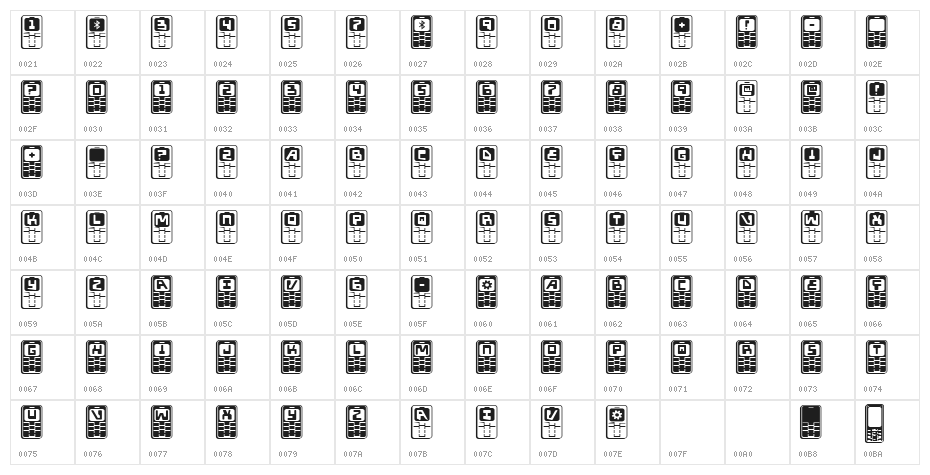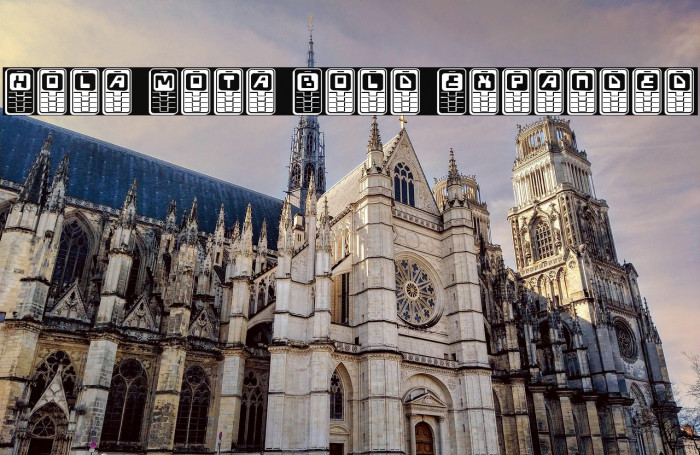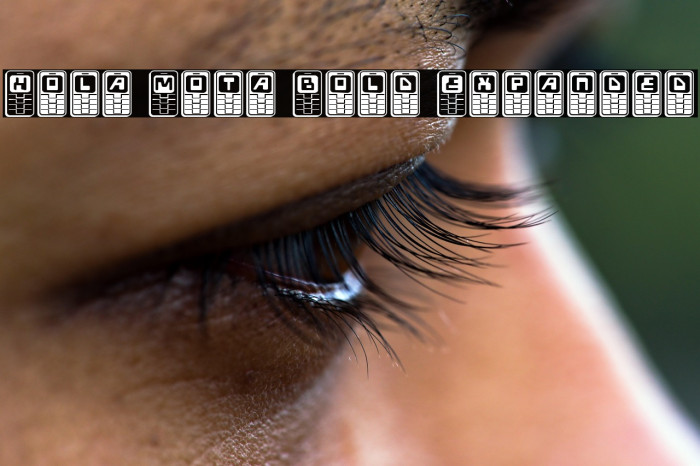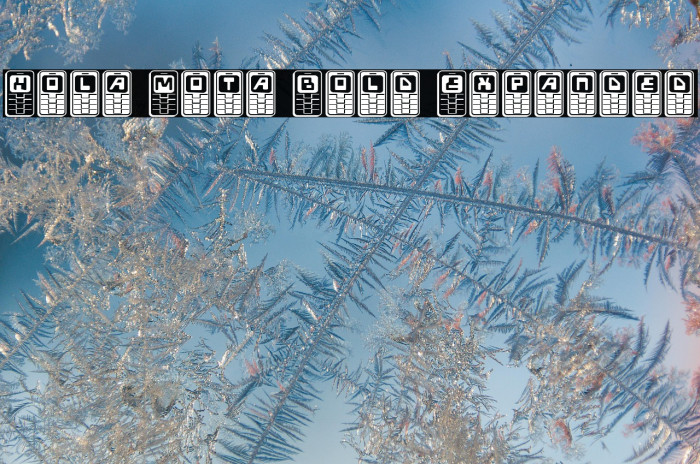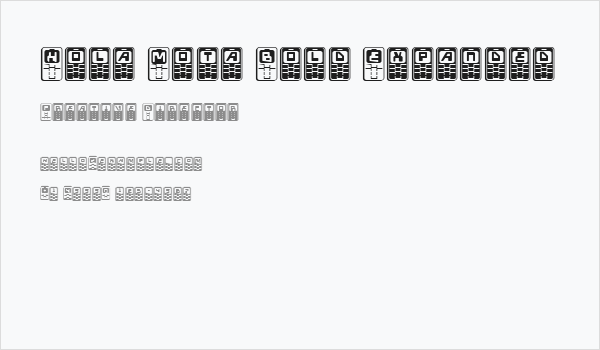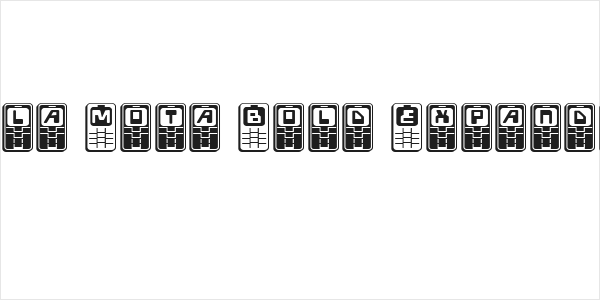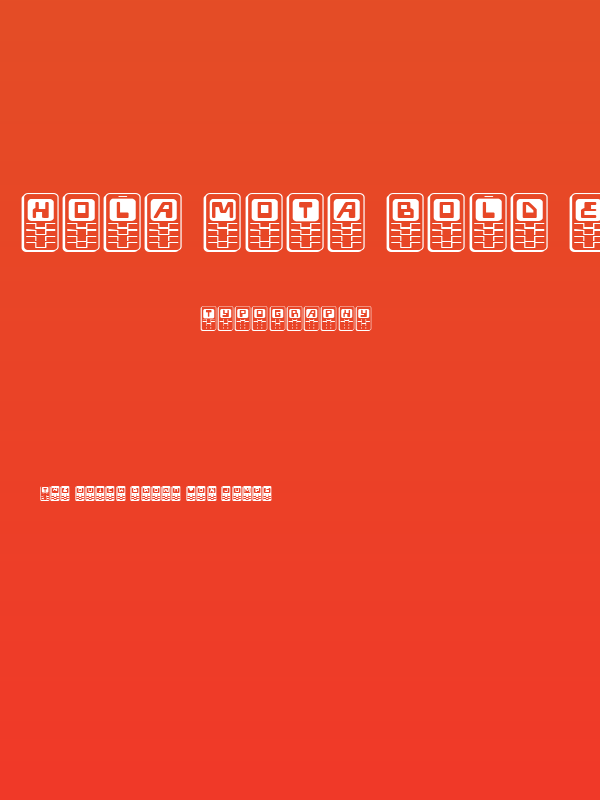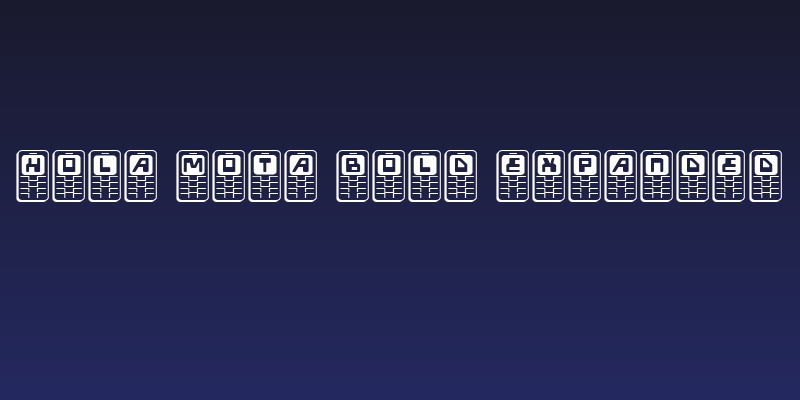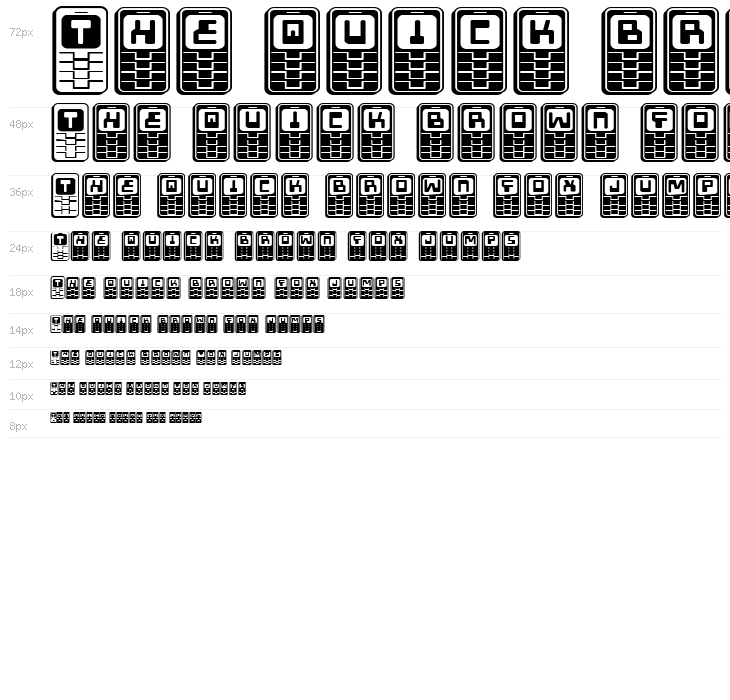
Hola Mota Bold Expanded Font
Hola Mota Bold Expanded Description
This font features a bold and expanded style with a unique, modern aesthetic. Each character is enclosed within a rectangular frame, giving it a structured and geometric appearance. The letters and numbers are bold, with a consistent thickness throughout, contributing to a strong visual impact. The design is highly stylized, with a futuristic feel, making it suitable for projects that require a standout, eye-catching typeface. The characters are evenly spaced, ensuring readability while maintaining a cohesive look. The overall style is decorative and display-oriented, ideal for creative and innovative design projects.
| Proposed Projects | Ideal for futuristic designs, tech branding, posters, and digital media projects. |